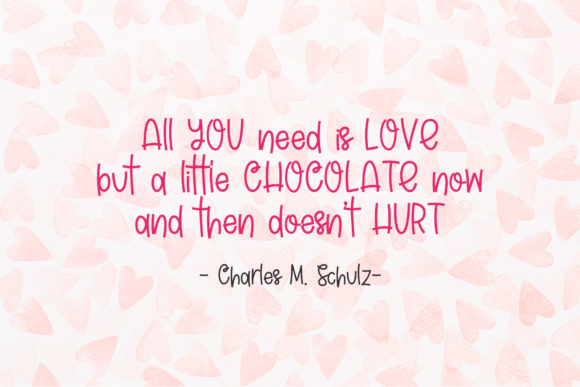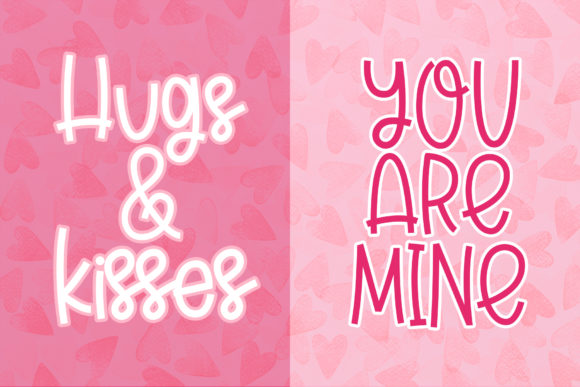
Spring Wishes Font
db-ku.com - Script & Handwritten -- Spring Wishes is a lovely handwritten font. Get creative with its childlike playfulness, and use it to brighten up any kids and school project!